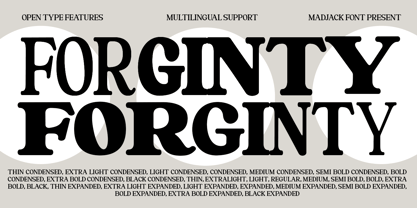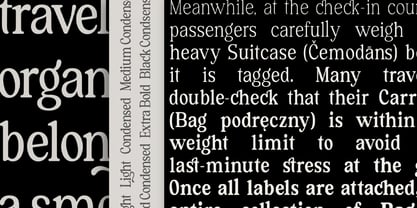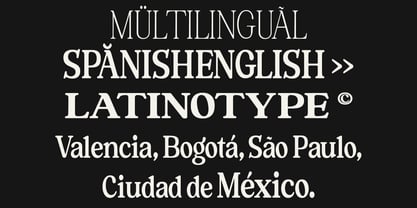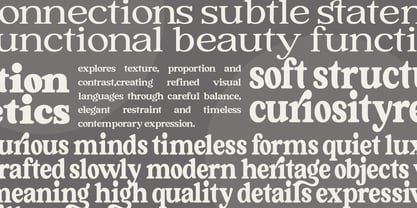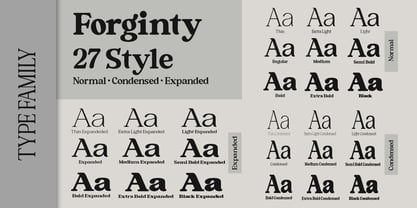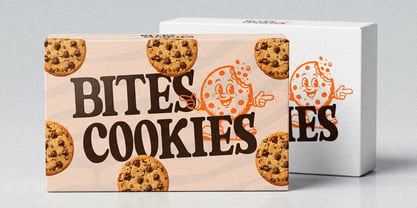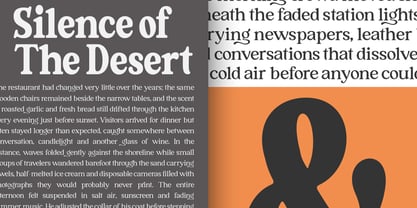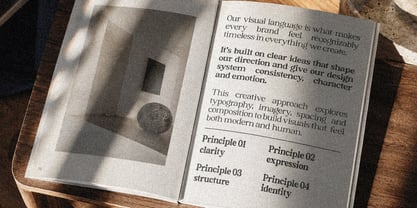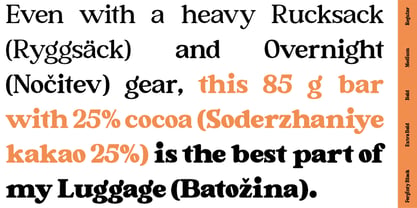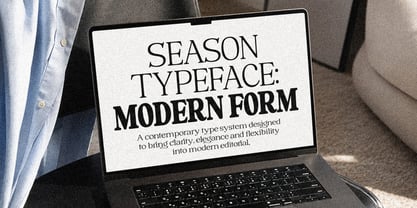
Forginty
The Forginty Font Family was designed by Zaki Muhammad and published by madjack.font. Forginty contains 28 styles and family package options. More about this family
Forginty is a new editorial serif font with clean, soft lines, bold curves, and a trendy, elegant look!
Forginty features a stylish serif font that's perfect for your design needs. This font is perfect for creating nostalgic yet clean and elegant designs for titles, magazines, logos, packaging, editorials, and more.
Multilingual Support
Supports: Danish, Dutch, English, Estonian, Faroese, Finnish, French, German, Hungarian, Icelandic, Italian, Norwegian, Polish, Portuguese, Slovenian, Spanish, Swedish, and Turkish.